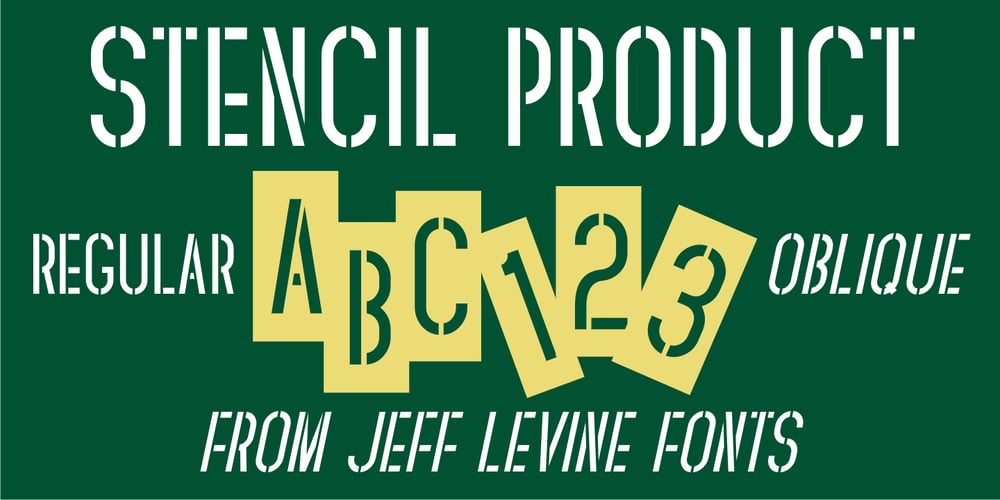
Stencil Product JNL Font Family was designed by Jeff Levine and published by Jeff Levine. Stencil Product JNL contains 2 styles and family package options. The hand lettered title on the 1940 sheet music for “Pledge to the Flag” is a stencil design with wider rounded letters (such as the C, G and O). It is now available as Stencil Product JNL in both regular and oblique versions.